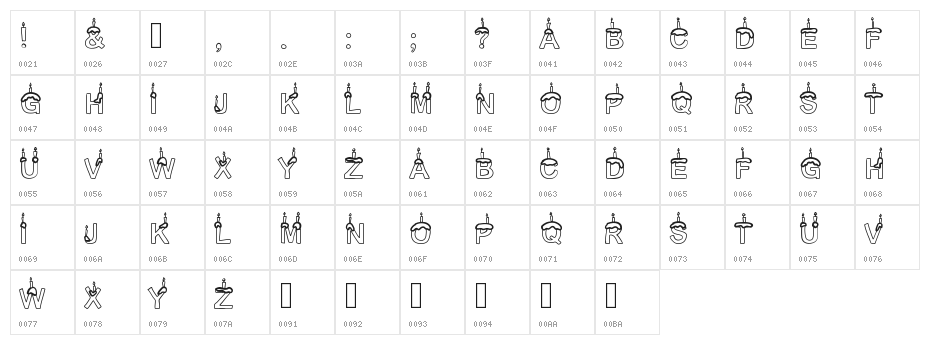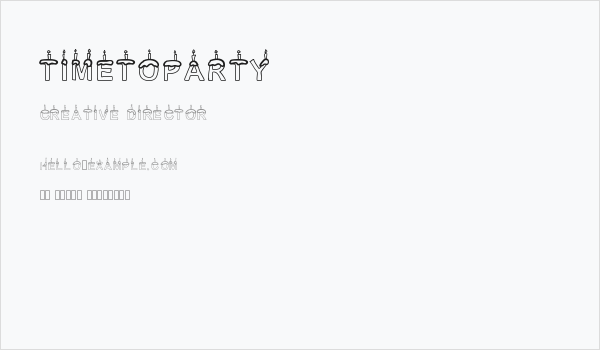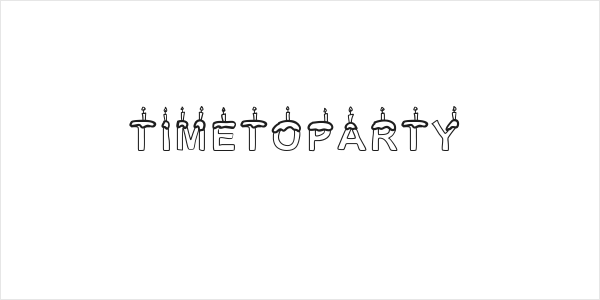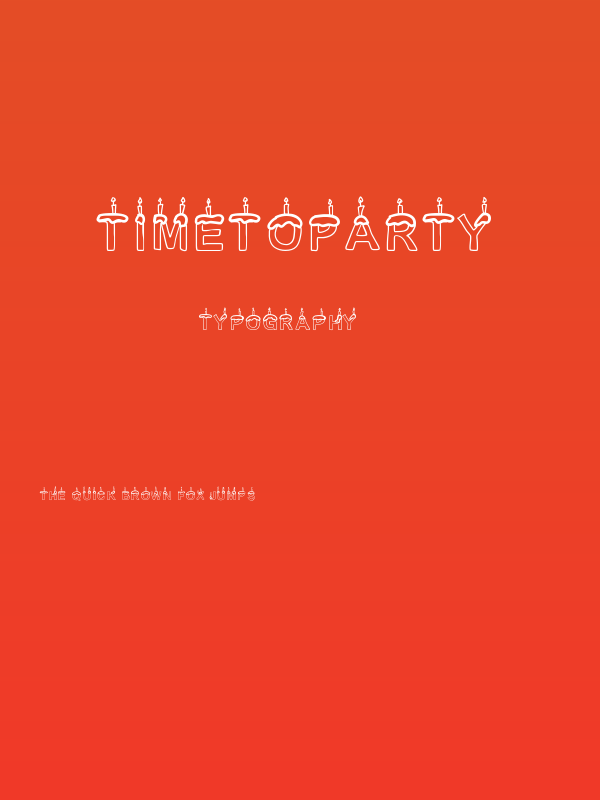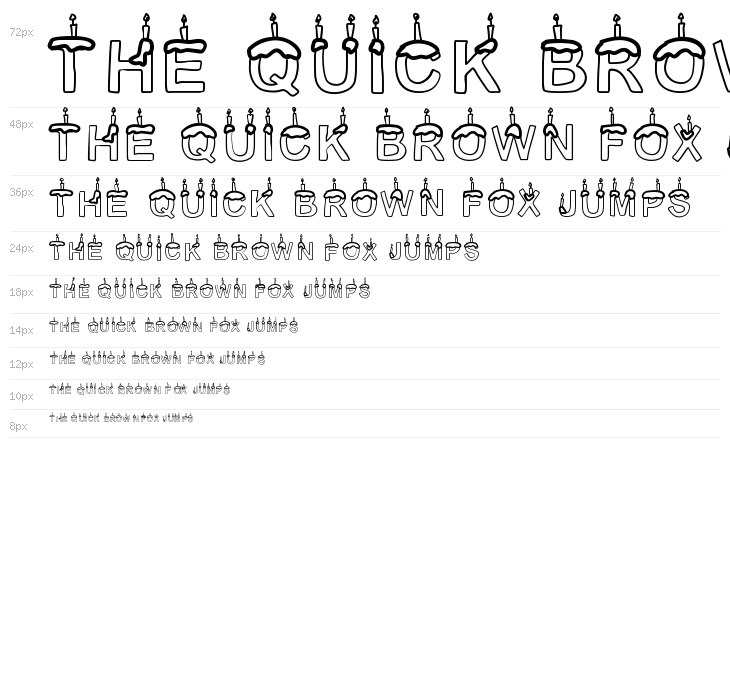
TimeToParty Font
TimeToParty Description
This playful and festive font features letters designed to resemble birthday candles, complete with wicks at the top of each character. The font has a bold and decorative style, making it ideal for celebratory themes. The characters are outlined, giving them a three-dimensional appearance, and the strokes are consistent in width, providing a uniform look. The font includes both uppercase and lowercase letters, numbers, and a selection of special characters, all maintaining the candle motif. The whimsical design is perfect for adding a touch of fun and excitement to any project.
| Proposed Projects | Ideal for birthday invitations, party banners, festive greeting cards, and celebratory event posters. |